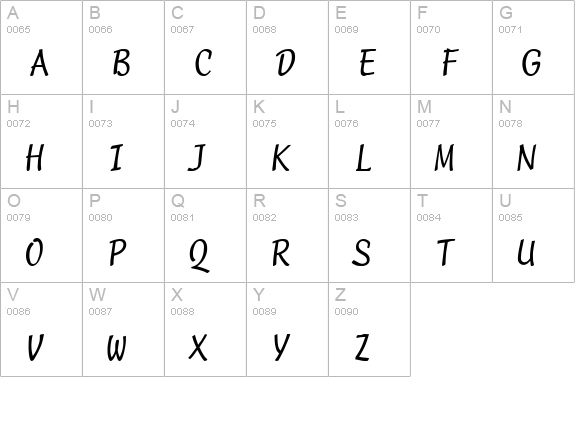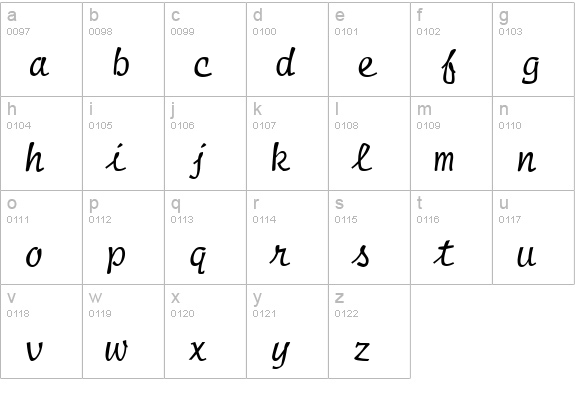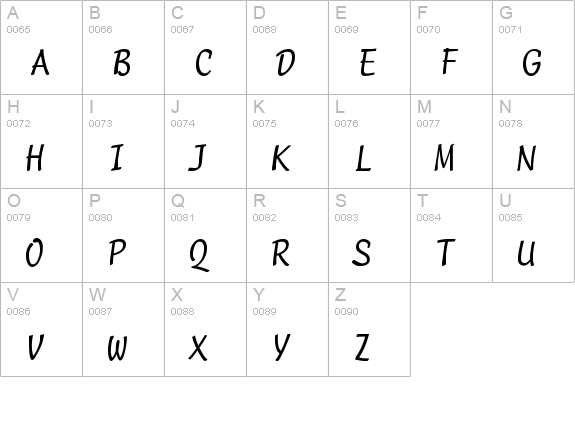
Manuscript Normal is the standard, neutral variant in the Manuscript typeface family \xE2\x80\x94 well suited to general body text, paragraphs, and standard typographic work.
Manuscript Normal font is a beautiful and elegant typeface that exudes sophistication and grace. With its clean lines and flowing curves, this font is perfect for adding a touch of class to any project. Whether you're designing invitations, creating a logo, or working on a book layout, Manuscript Normal font will elevate your design to new heights. One of the best features of Manuscript Normal font is that it is free. Yes, you read that right! This stunning font is freely available to download at FontsMarket.com. This means that you can enhance your designs without breaking the bank. Whether you're a professional designer or a hobbyist, having access to high-quality, free fonts like Manuscript Normal font is a game-changer. When you download Manuscript Normal font, you'll discover a wide range of characters and glyphs that allow for endless creativity. From uppercase and lowercase letters to numerals, punctuation marks, and special characters, this font has everything you need to bring your vision to life. The versatility of Manuscript Normal font makes it suitable for a variety of design projects, from wedding invitations and branding materials to website headers and social media graphics. Not only does Manuscript Normal font offer a visually pleasing aesthetic, but it is also incredibly easy to read. The carefully crafted letterforms ensure maximum legibility, making it an excellent choice for body text or long blocks of copy. Its balanced proportions and consistent stroke widths create a harmonious rhythm that keeps the eye moving smoothly across the page. So why wait? Head over to FontsMarket.com today and download Manuscript Normal font for free. Start incorporating this stunning typeface into your designs and watch as your projects come to life with a touch of elegance and sophistication. Let Manuscript Normal font be the secret weapon in your design arsenal, helping you stand out from the crowd and leave a lasting impression.